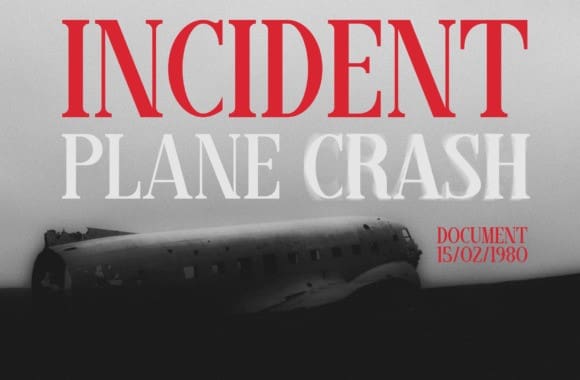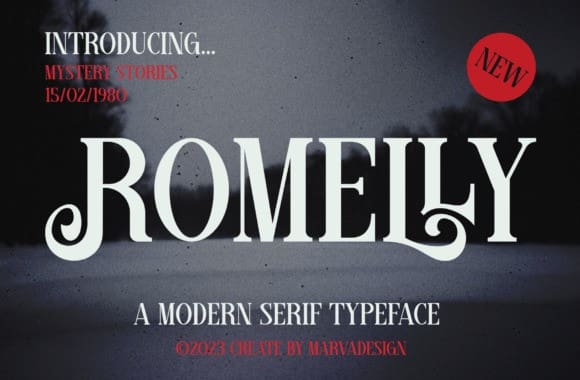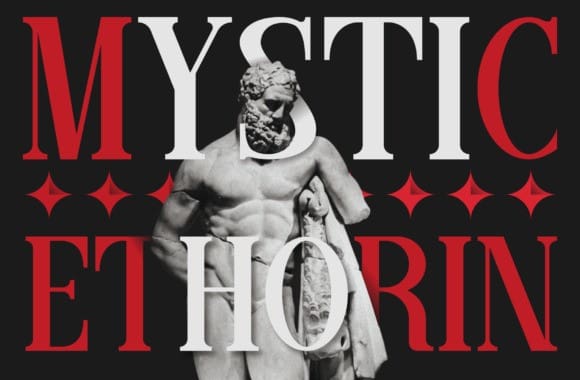
Romelly Font
Romelly Font – a modern serif font that brings a touch of sophistication to your projects. With clean lines and elegant curves, Romelly adds a contemporary flair while maintaining readability. Perfect for both digital and print designs, this versatile font is sure to elevate your work with its timeless charm.